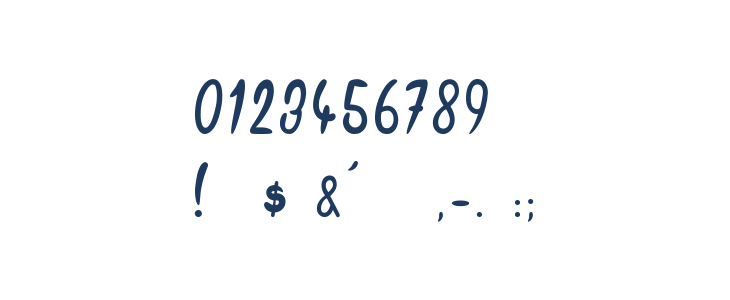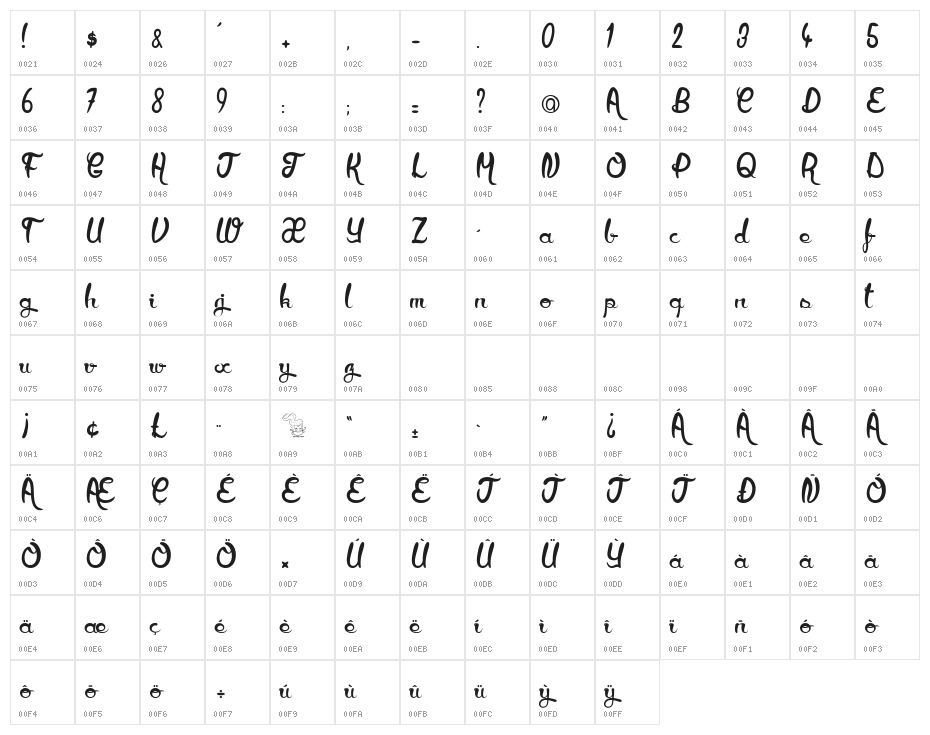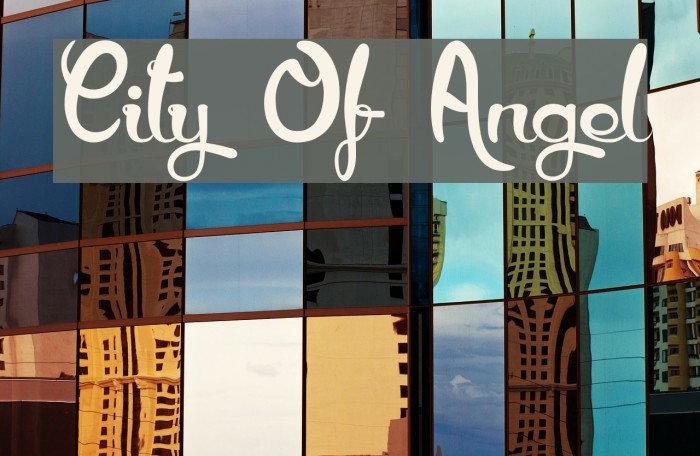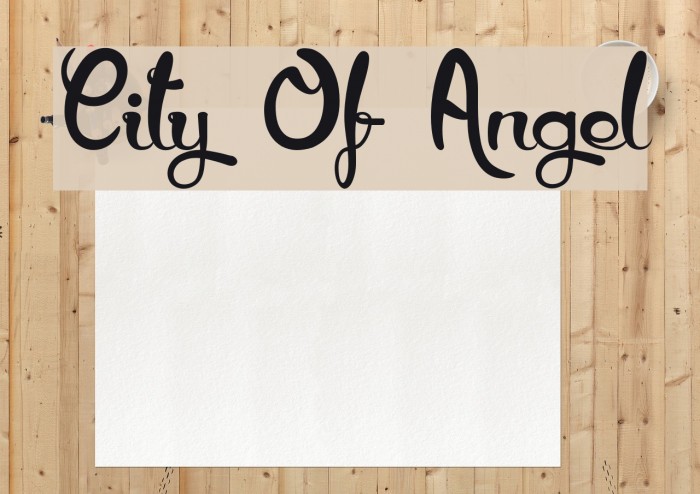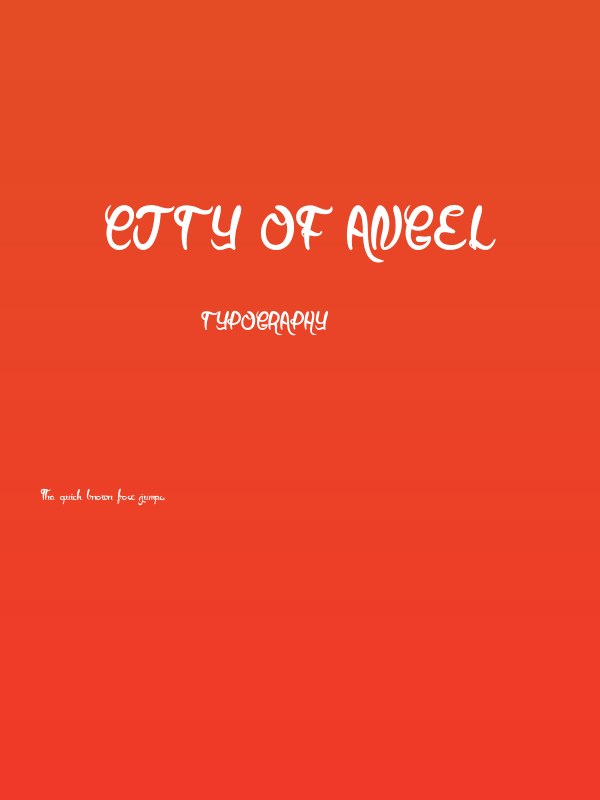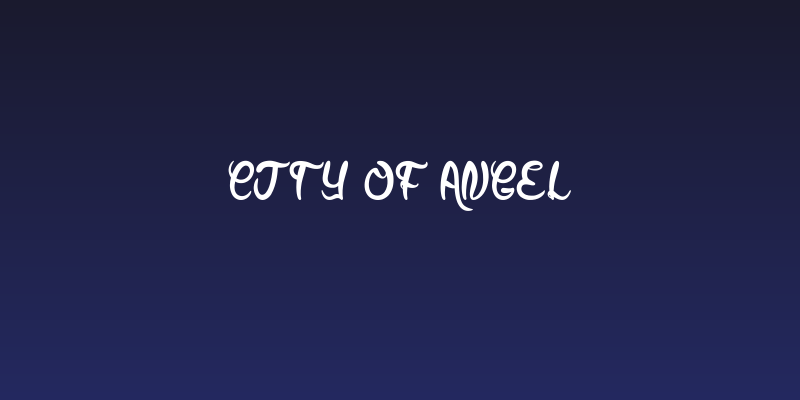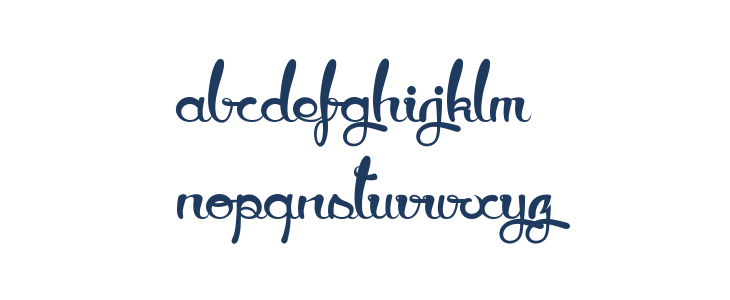
City Of Angel Font
City Of Angel Description
This font features a flowing, cursive style with a playful yet elegant appearance. The uppercase letters are bold and have a distinctive flair, with exaggerated loops and curves that give them a dynamic look. The lowercase letters maintain a consistent flow, with smooth connections between characters, enhancing the script-like quality. Numbers and special characters are designed to match the overall aesthetic, with similar curves and strokes. The font's artistic design makes it suitable for creative projects that require a touch of sophistication and personality.